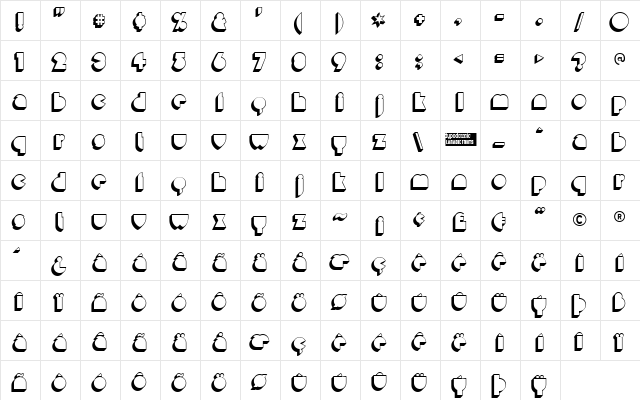
Misirlou Day Regular
Misirlou Day Family
Design Context for Misirlou Day
Misirlou Day is a composed and adaptable typeface that performs quietly and consistently across a wide range of design contexts.